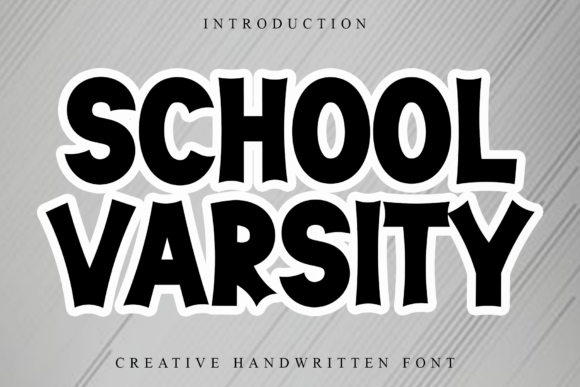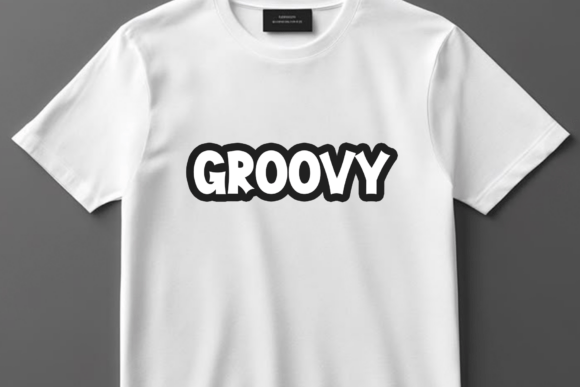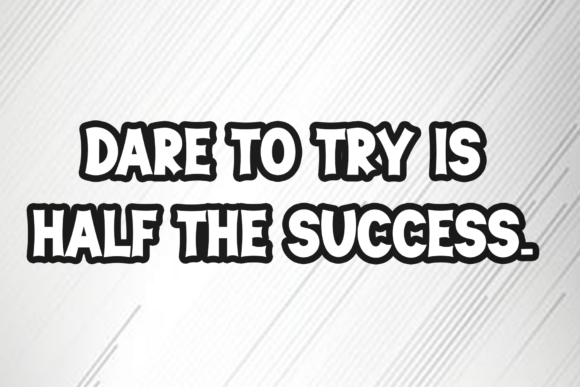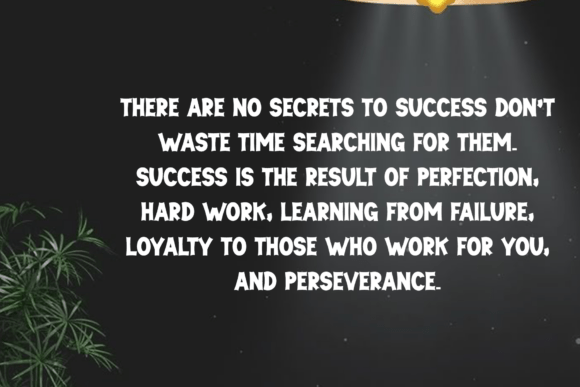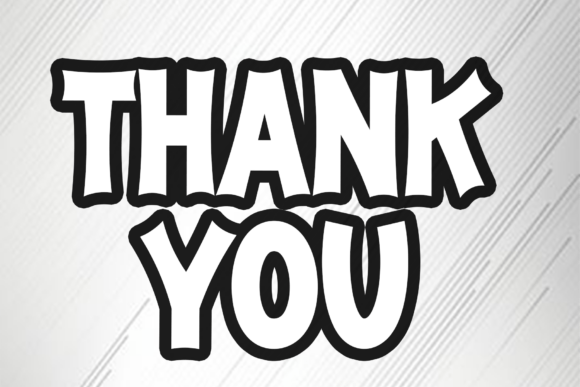
School Varsity Font
School Varsity is a casual and creative font that exudes warmth and friendliness. Its round, playful strokes create a relaxed and approachable feel, perfect for personal projects, invitations, and social media graphics. The font’s charming, hand-drawn aesthetic adds a fun and unique touch to any design.